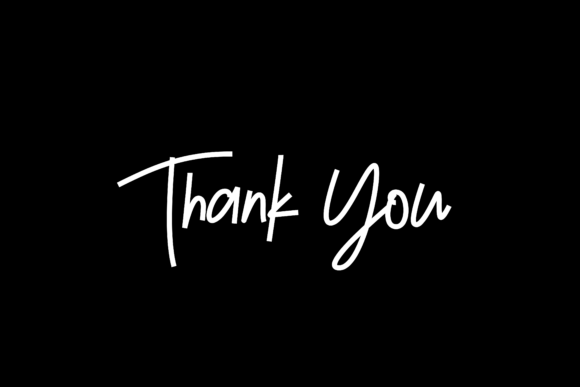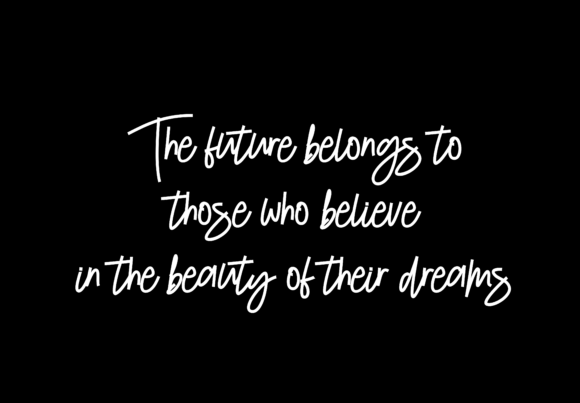
Discover the Elegance of Amsterdem Font: Elevate Your Designs with Sophistication
Immerse yourself in the captivating realm of the “Amsterdem” font. This elegantly refined script style exudes an irresistible charm that is impossible to ignore. Amsterdem’s exquisite sophistication turns everyday wedding announcements into timeless mementos of love, infuses your papercrafts with subtle refinement, and adds a charismatic glow to your digital content.
The Allure of Amsterdem Font
Amsterdem font is a masterclass in typographic design, boasting an intricate dance of lines and curves that culminate in a visually stunning script style. Its unique blend of classic elegance and modern flair makes it the perfect choice for designers and crafters seeking to add a touch of sophistication to their work.
Whether you’re creating wedding invitations, papercrafts, or digital content, Amsterdem font is sure to make a lasting impression. Its elegant strokes and refined features evoke a sense of luxury and refinement, elevating even the most mundane designs into works of art.
Unleashing Creativity with Amsterdem Font
One of the most significant advantages of Amsterdem font is its versatility. Its subtle yet striking appearance makes it an excellent choice for a wide range of design applications, from:
- Wedding announcements and invitations: Add a touch of romance and sophistication to your wedding designs with Amsterdem font.
- Papercrafts: Infuse your handmade crafts with a sense of elegance and refinement.
- Digital content: Elevate your blog posts, social media graphics, and website designs with Amsterdem’s charismatic glow.
Tips for Working with Amsterdem Font
To get the most out of Amsterdem font, consider the following tips:
- Pair Amsterdem font with complementary fonts to create visual interest and hierarchy.
- Experiment with different colors and textures to add depth and dimension to your designs.
- Use Amsterdem font to create eye-catching headlines and titles that draw attention.
The Benefits of Using Amsterdem Font
So, why choose Amsterdem font for your design projects? Here are just a few benefits:
- Elegance and sophistication: Amsterdem font adds a touch of refinement and luxury to any design.
- Versatility: Amsterdem font is suitable for a wide range of design applications, from wedding announcements to digital content.
- Unique charm: Amsterdem font’s distinctive character and charisma set it apart from other script fonts.
In conclusion, Amsterdem font is a design treasure that is sure to captivate and inspire. Its elegant refinement, versatility, and unique charm make it an excellent choice for designers and crafters seeking to elevate their work. Whether you’re creating wedding announcements, papercrafts, or digital content, Amsterdem font is the perfect choice for adding a touch of sophistication and glamour.